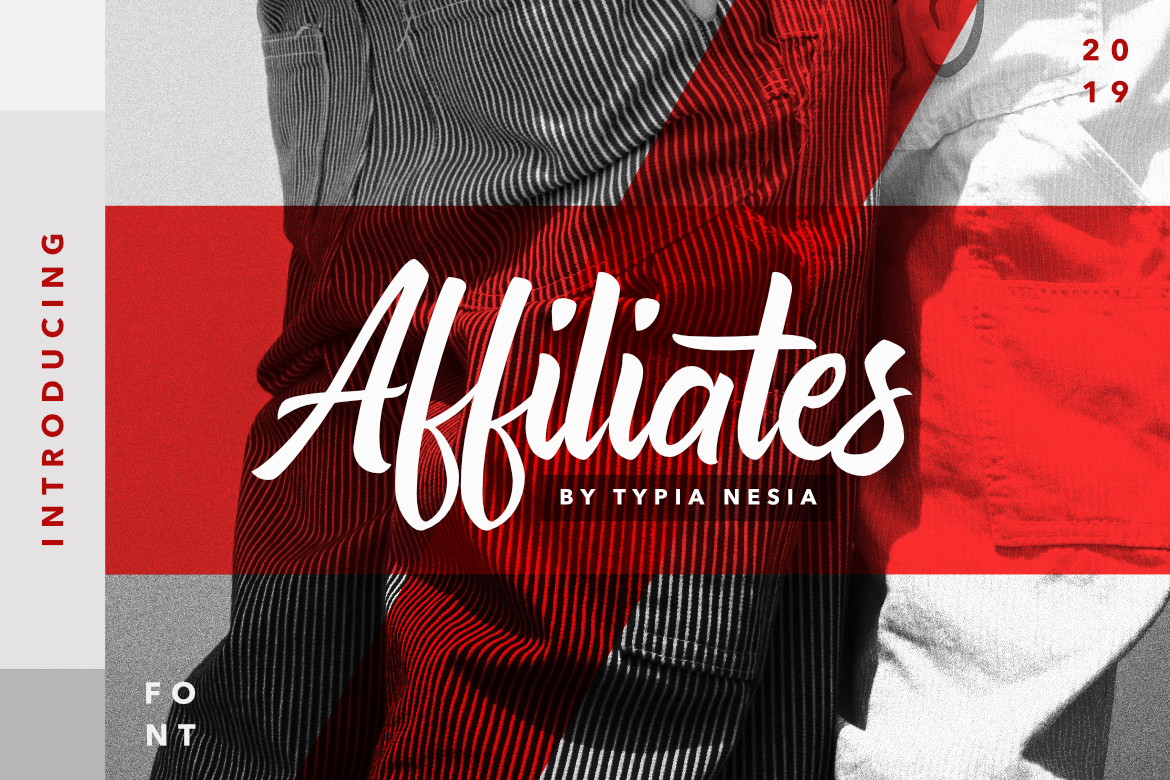
Affiliates is a modern and natural hand lettered font. Work great for any design needs : logo, branding, modern advertising design, logos, poster quote, book / cover Title, editorial design, website / blog, card, custom mug, pillow, t-shirts, and any hand-lettered needs.